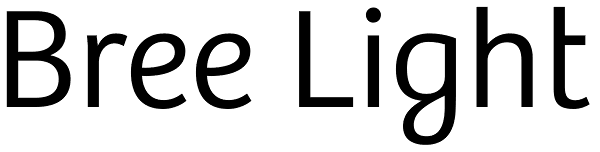
Bree
Bree, based on TypeTogether’s logotype, is a sleek sans serif that delivers a polished and modern look and feel for branding or headline usage. Some of its most characteristic features are the one-story ‘a’, the cursive ‘e’, the curves in the...